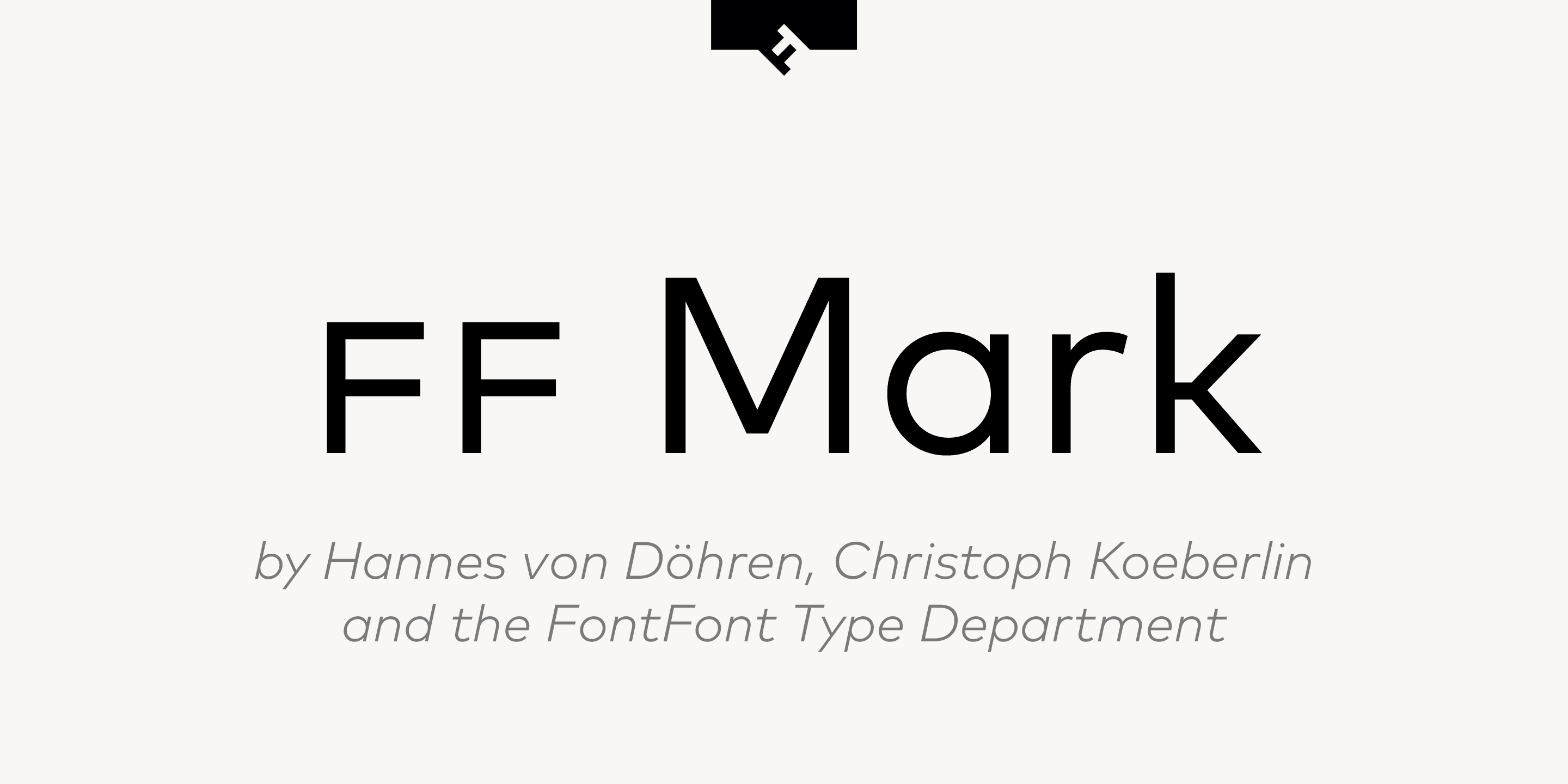
FF Mark Font is perfect for contemporary branding systems, digital interface design, modern editorial layouts, tech company communications, progressive marketing materials, startup presentations, clean web typography, innovative app interfaces, forward-thinking corporate identity, and any projects that require versatile, humanist sans-serif excellence.
What makes FF Mark Font exciting is its masterful balance of geometric precision and humanist warmth that creates exceptionally readable letterforms suitable for both digital screens and print applications. This versatile typeface features carefully crafted proportions with subtle optical corrections that ensure consistent performance across all sizes and media formats. The font's contemporary character makes it perfect for brands seeking to communicate innovation, reliability, and human-centered design philosophy in their visual communications.
FF Mark Font family includes extensive weight variations featuring thin, light, book, regular, medium, bold, heavy, and black options. The font family also offers true italic versions with distinct character, along with narrow and condensed variants that maximize space efficiency. Special features include comprehensive language support, advanced OpenType features, and optimized spacing that delivers exceptional typography in both text and display applications.